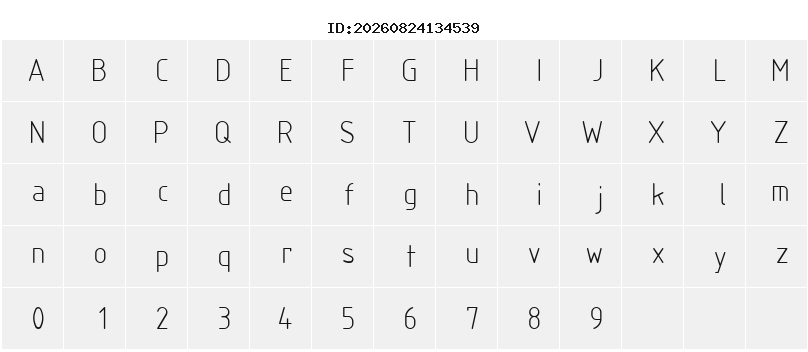
• Font Name: SWIsot2
About SWIsot2.ttf
SWIsot2.ttf is a modern, elegant sans-serif font designed for ultimate readability and visual harmony. Perfect for branding, headlines, web design, and print materials.